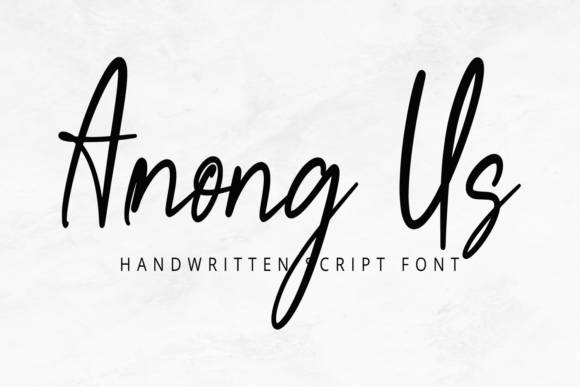
The Among Us Font: A Timeless Elegance for Your Designs
Have you ever been in the middle of a design project, and suddenly, you’re stuck on finding the perfect font? I recall a recent experience where I was working on a wedding invitation design, and my client specifically asked for a font that exuded elegance and sophistication. After hours of searching, I stumbled upon the Among Us font, and it was love at first sight! In this article, we’ll dive into the world of Among Us, exploring its features, uses, and alternatives.
A Personal Review: What I Love About Among Us
The Among Us font is a lovely and delicate script font that has become a staple in my design toolkit. Here’s what I love about it:
- ✨ Elegant and refined: Among Us boasts a sophisticated, handwritten look that’s perfect for designs that require a touch of luxury.
- ✅ Versatile: This font is suitable for a wide range of design projects, from wedding invitations and greeting cards to logos and business cards.
- 💕 Delicate strokes: The font’s gentle, cursive strokes add a romantic touch to any design.
While Among Us is an excellent font, it’s not without its quirks:
- ⚠️ Limited use in bold or large sizes: Among Us can appear delicate and may not be the best choice for bold or oversized text.
- 🤔 Glyph limitations: Some users have reported limited glyph options, which might restrict the font’s use in certain design projects.
The Designer Inspiration Behind Among Us
The Among Us font was crafted with love and care by a talented designer who aimed to create a font that exudes elegance and class. Although the designer’s story is shrouded in mystery, it’s clear that their passion for typography and design shines through in this beautiful font.
| What is the Among Us font best suited for? | The Among Us font is perfect for designs that require a touch of elegance and sophistication, such as wedding invitations, greeting cards, and logos. |
In conclusion, the Among Us font is a timeless elegance that can elevate your designs to new heights. With its delicate strokes, elegant feel, and versatility, it’s an excellent addition to any design toolkit. Whether you’re a seasoned designer or a creative hobbyist, Among Us is sure to become a favorite font in your collection.